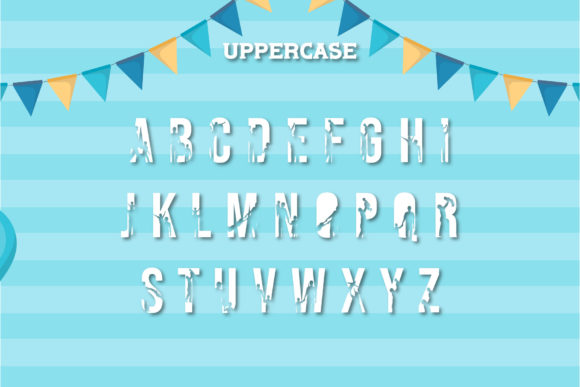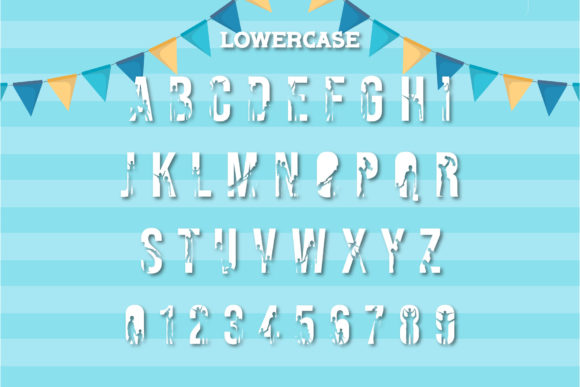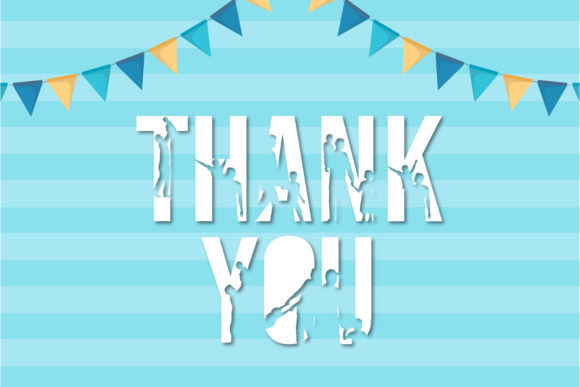
Happy Father Day Font: The Perfect Addition to Your Designs
Are you looking for a unique and eye-catching font to make your designs stand out? Look no further than the Happy Father Day Font! This cool and original looking decorative font is perfect for various projects, including blog posts, logos, branding, ads, invitations, greeting cards, planners, photo albums, decorations, and much more.
What is Happy Father Day Font?
Happy Father Day Font is a specially designed font that captures the spirit of Father’s Day. Its unique and decorative style makes it perfect for adding a personal touch to your designs. Whether you’re a designer, crafter, or DIY enthusiast, this font is sure to impress.
Features of Happy Father Day Font
• Unique and Decorative Style: Happy Father Day Font has a one-of-a-kind design that will make your projects stand out from the crowd.
• Versatile: This font can be used for a wide range of projects, from digital designs to print materials.
• High-Quality: This font is designed with high-quality and clarity in mind, ensuring that it looks great in any size or resolution.
Uses of Happy Father Day Font
Happy Father Day Font is perfect for a variety of projects, including:
• Blog Posts: Add a personal touch to your blog posts and make them more engaging with Happy Father Day Font.
• Logos and Branding: Create a unique and memorable logo for your business or brand with this font.
• Ads and Marketing Materials: Make your ads and marketing materials stand out with Happy Father Day Font.
• Invitations and Greeting Cards: Create personalized invitations and greeting cards for Father’s Day and other special occasions.
• Planners and Photo Albums: Add a decorative touch to your planners and photo albums with this font.
• Decorations: Use Happy Father Day Font to create custom decorations for your home or office.
Tips for Using Happy Father Day Font
Here are some tips for using Happy Father Day Font in your designs:
• Experiment with Different Sizes and Colors: Try out different sizes and colors to see what works best for your design.
• Pair with Other Fonts: Pair Happy Father Day Font with other fonts to create a unique and interesting combination.
• Use in Combination with Images: Use this font in combination with images to create a visually appealing design.
• Make it Bold or Italic: Use the bold or italic versions of Happy Father Day Font to add emphasis to your text.
Happy Father Day Font is a unique and versatile font that is perfect for designers, crafters, and DIY enthusiasts. Its decorative style and high-quality design make it perfect for a wide range of projects. Whether you’re looking to create a custom logo, add a personal touch to your blog posts, or create custom decorations, Happy Father Day Font is the perfect addition to your designs.